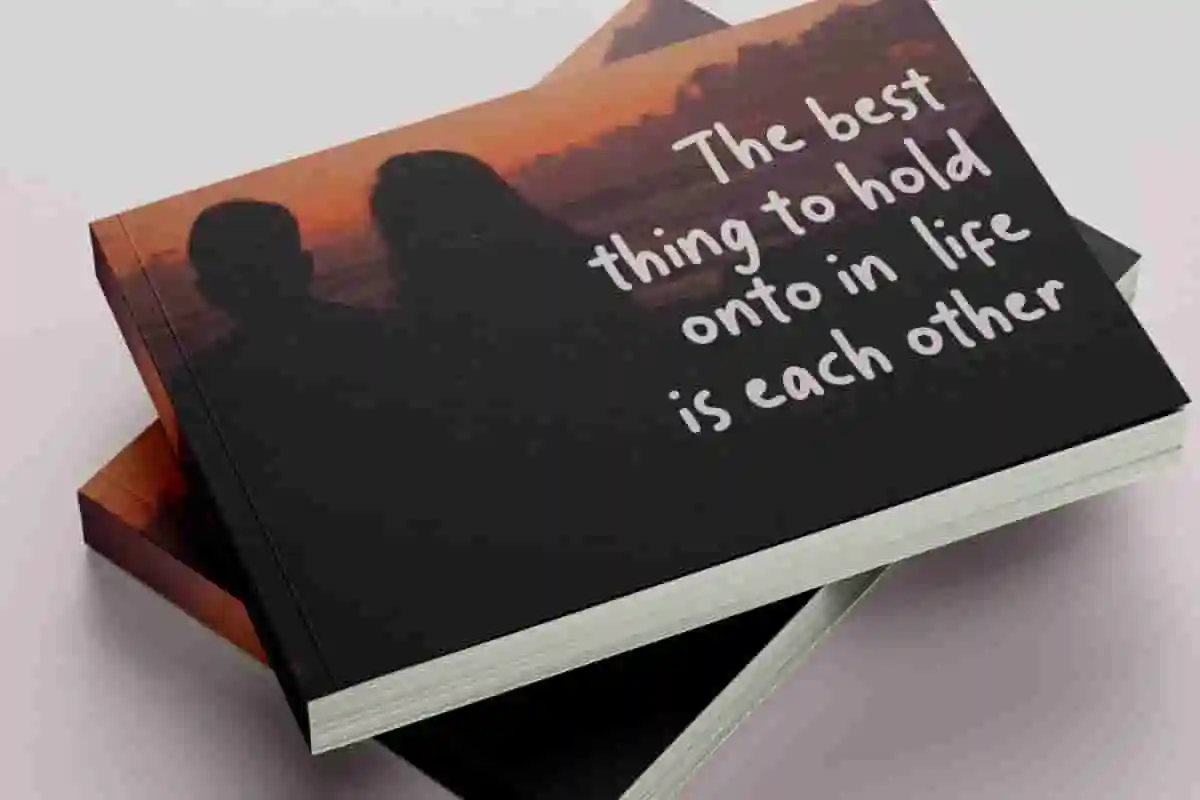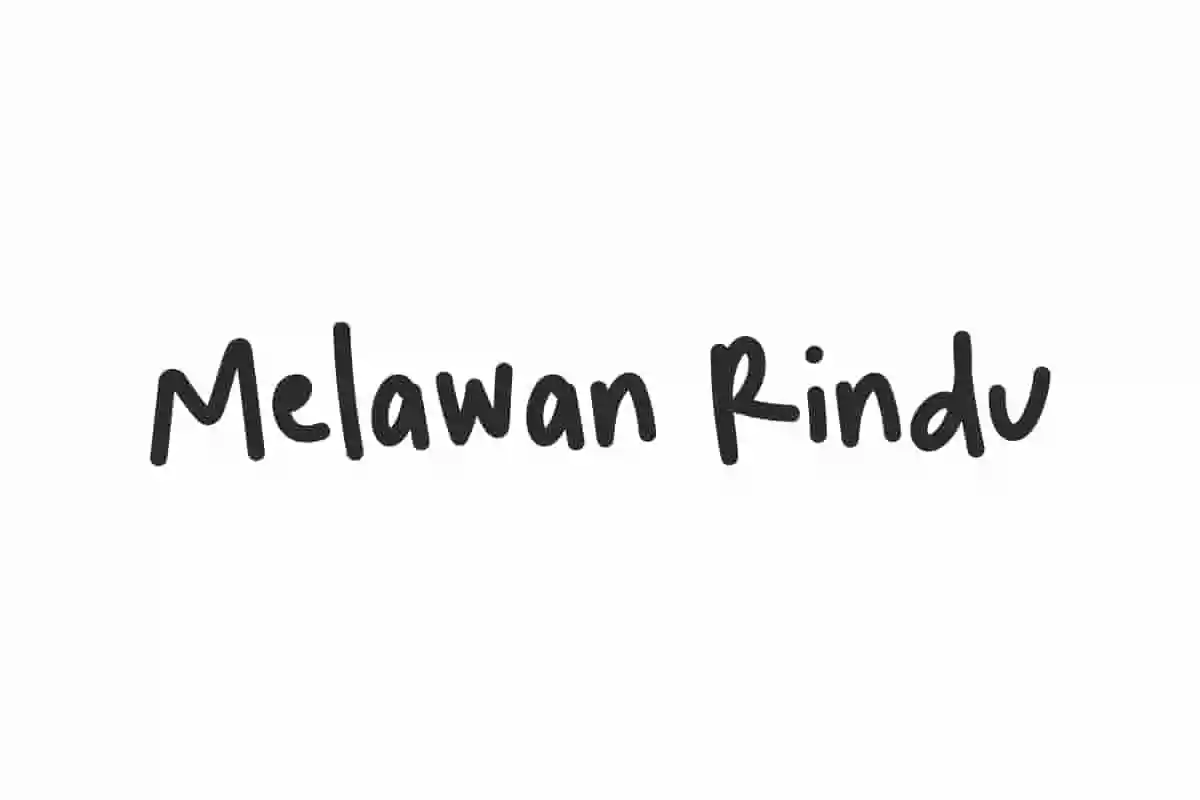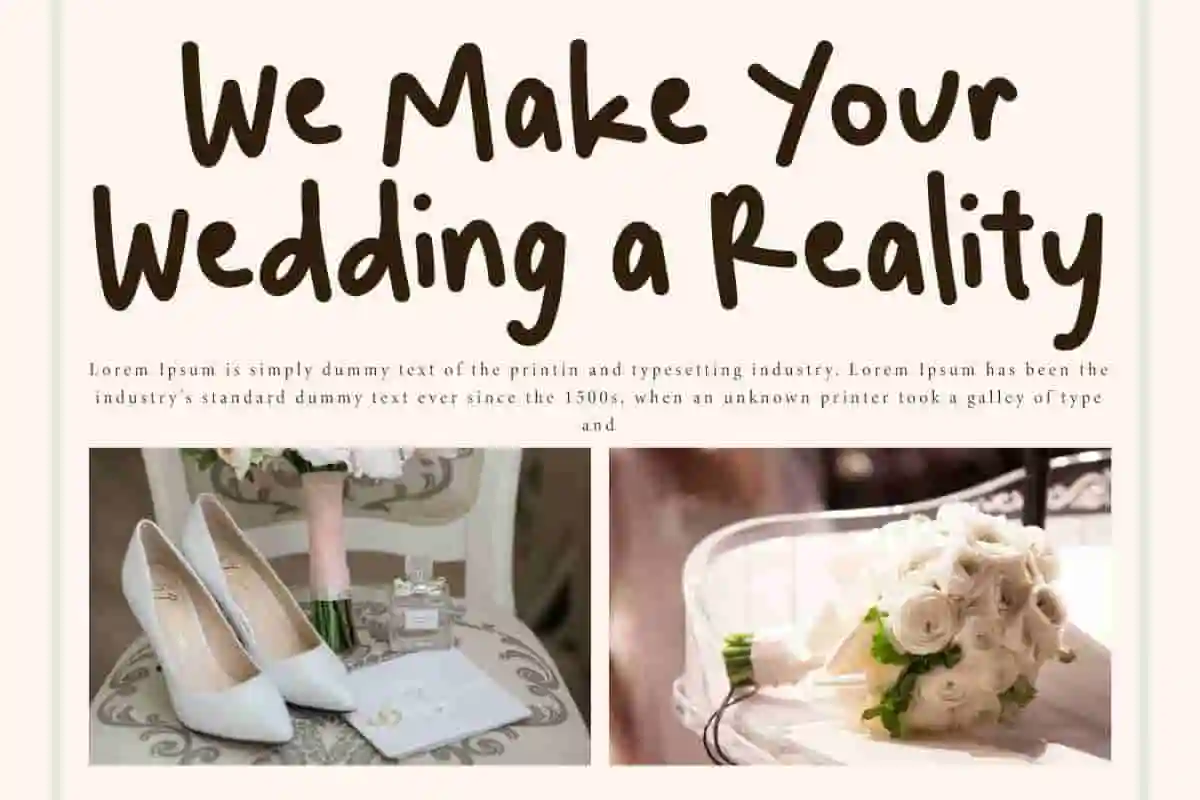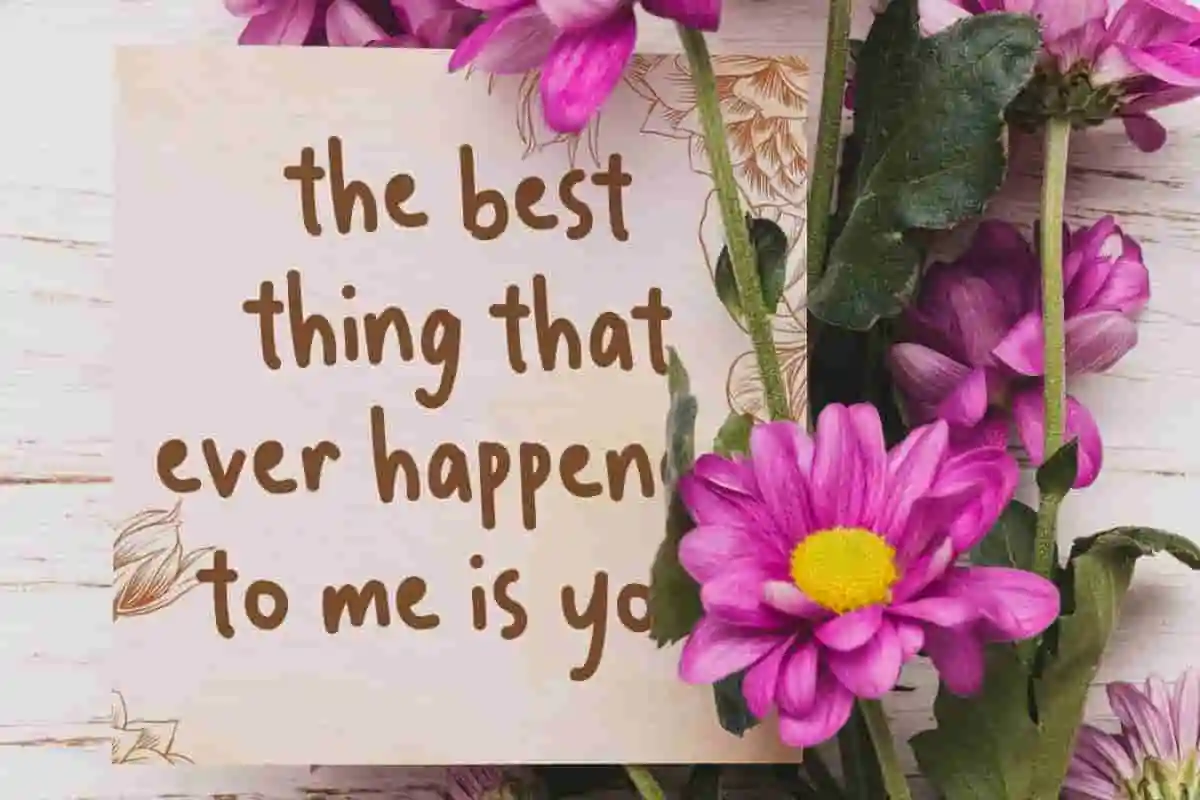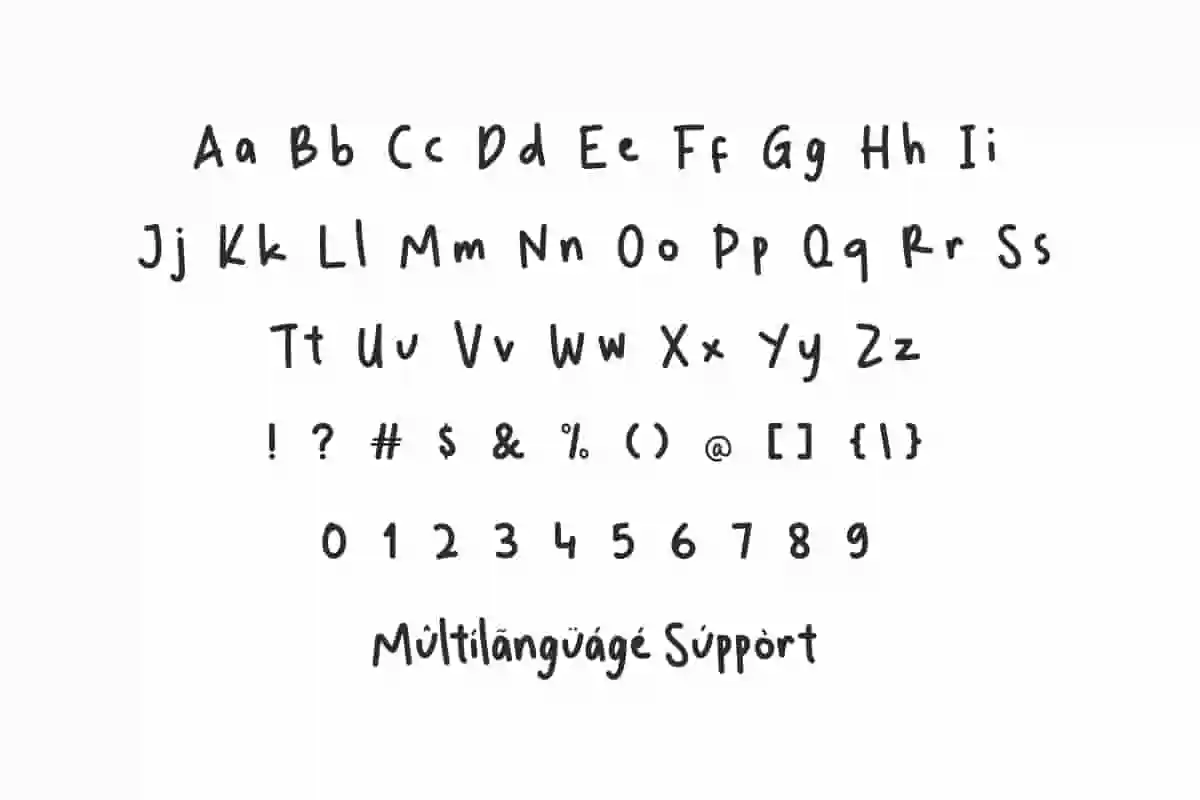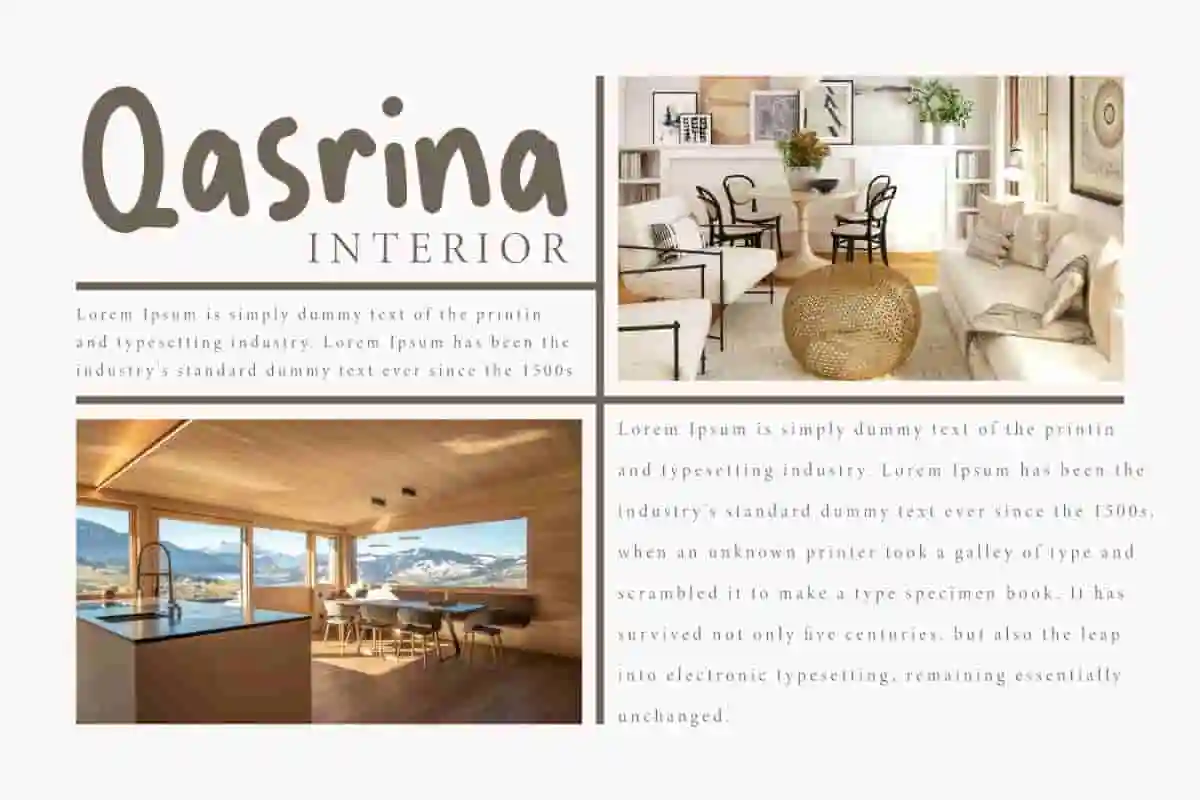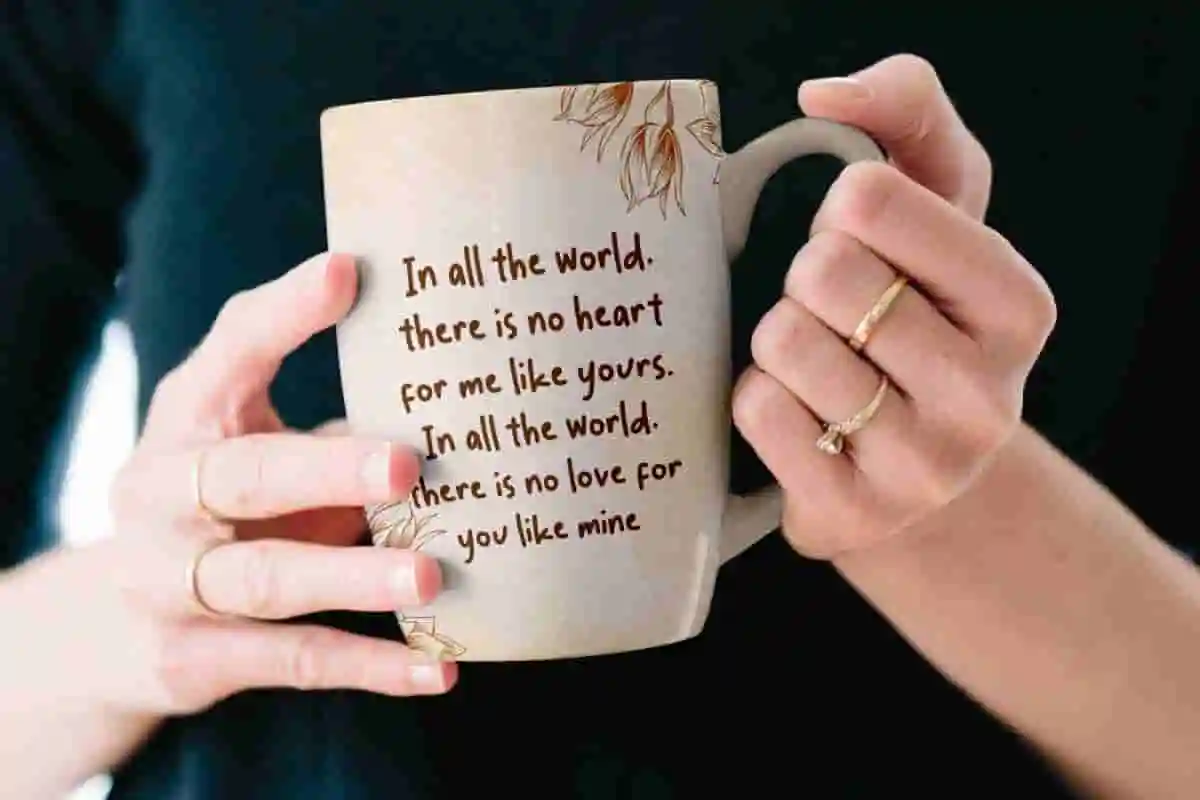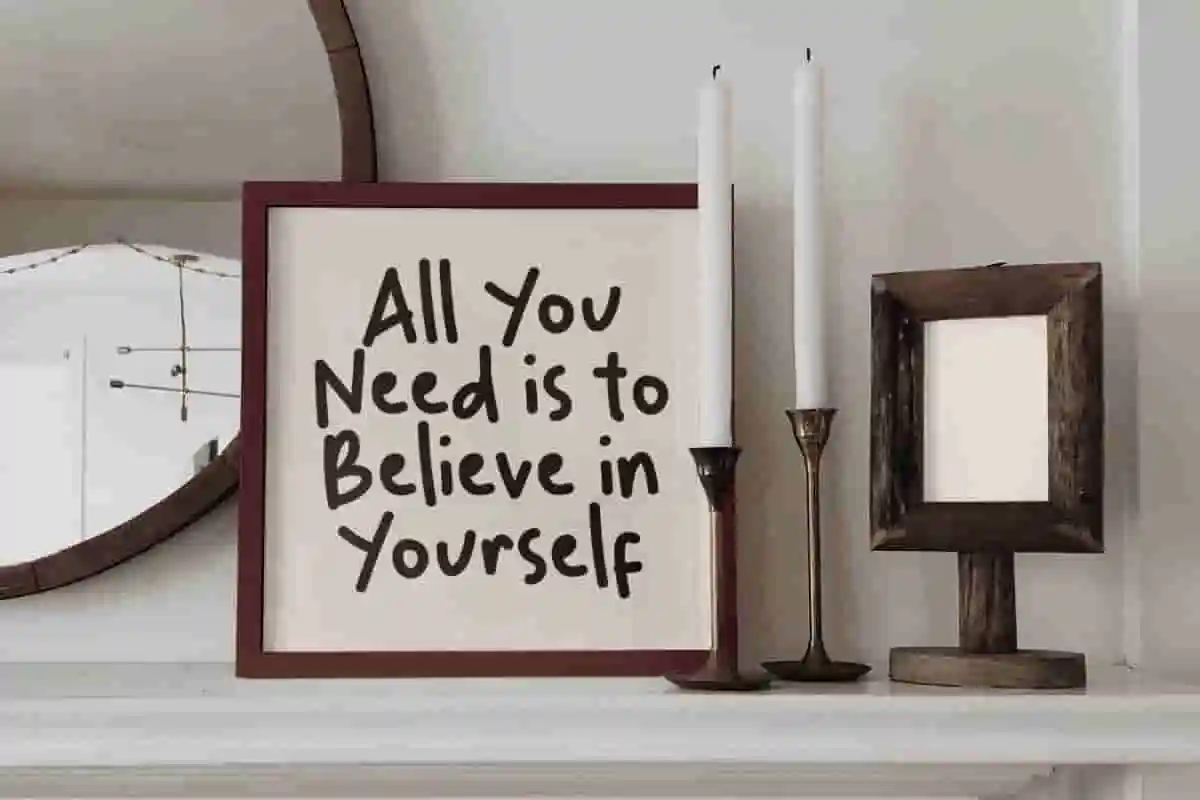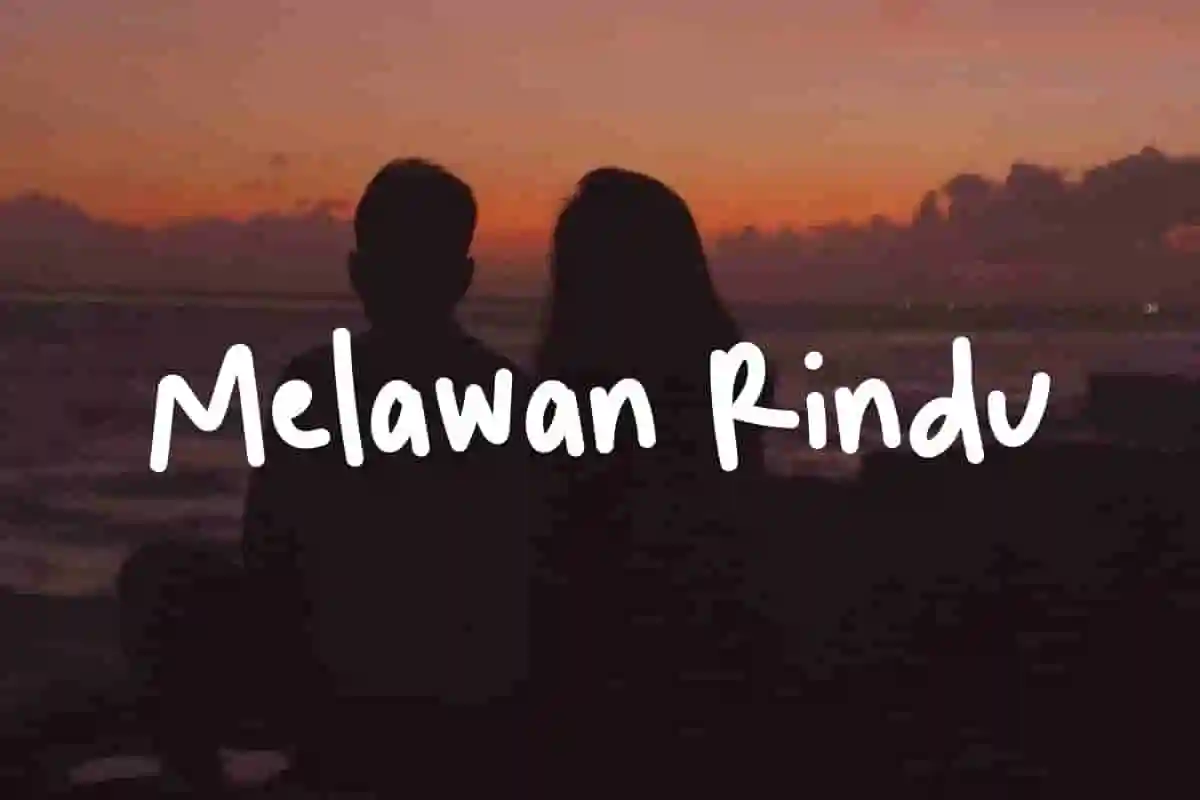
Melawan Rindu Font is a bold marker font that resembles a marker pen with natural edges and realistic shapes. Make your projects feel special with this font collection!
Melawan Rindu Font is a fun marker handwriting font with a casual touch, making it look like natural handwriting. Perfect for banners, blogs, brochure, covers, custom mug, flyer, greeting card, headers, label, logos, mockup, social media post, stationery, sticker, template, title, quotes, website, and much more.
Melawan Rindu Font includes a complete set of Basic Uppercase and Lowercase Characters, Numbers, Punctuation and Symbols. You can easily combine different characters to create the look you want! Use this font for accessories and gifts, author, boutique, fashion, florist, graphic designer, handicraft, home furniture, photography, pottery, wedding, writer, etc.